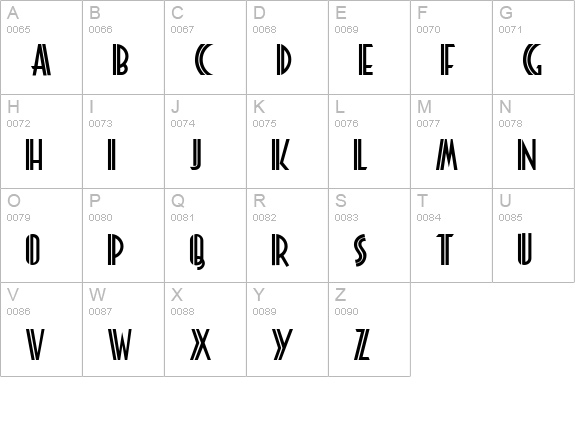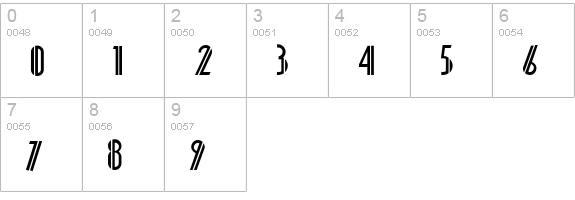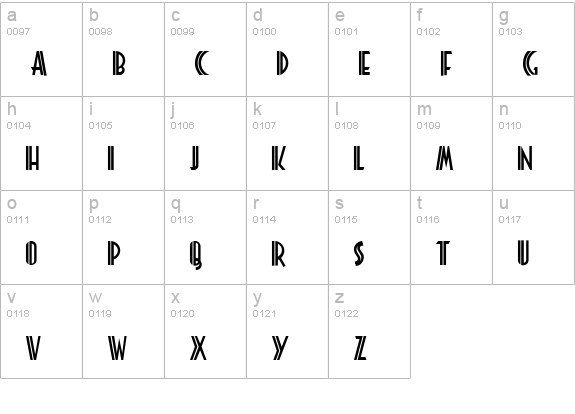
Platonick NF Font Details
Platonick NF font is a modern and stylish typeface that exudes elegance and sophistication. With its clean lines and sleek design, this font is perfect for a wide range of creative projects, from branding to editorial design. The Platonick NF font is versatile and can be used for both headings and body text, adding a touch of class to any project. Best of all, this exquisite font is available for free download at FontsMarket.com. Whether you're a designer looking to enhance your portfolio or a business owner in need of a fresh new look for your brand, Platonick NF font is the perfect choice. Download it today and elevate your designs to the next level with this stunning and timeless typeface.